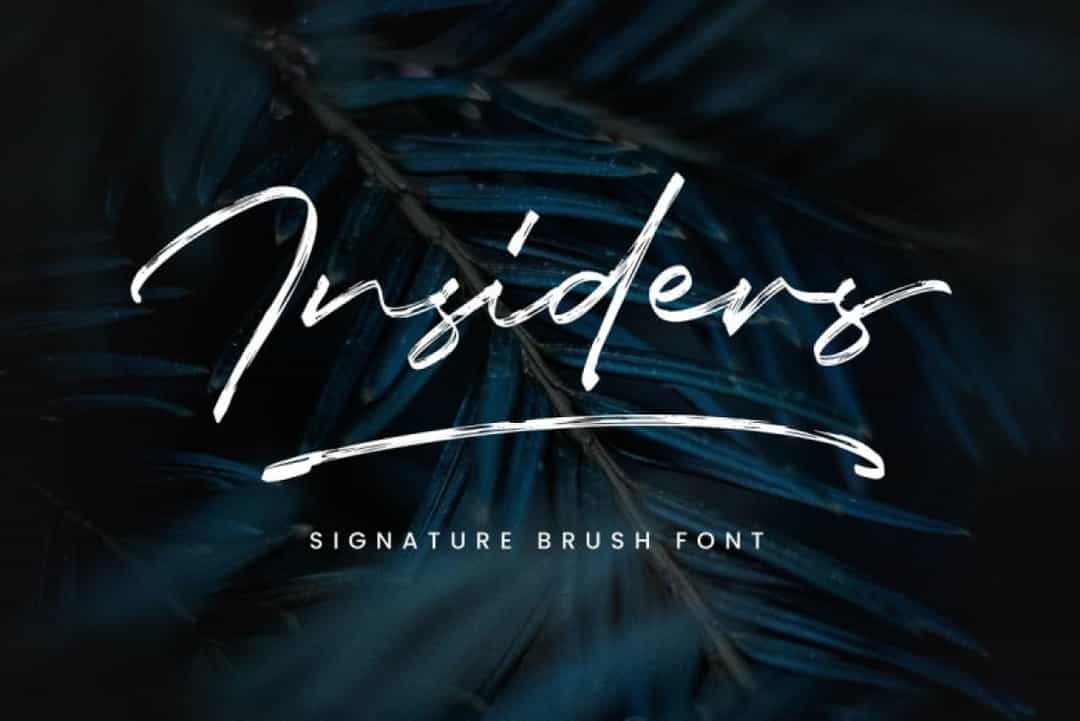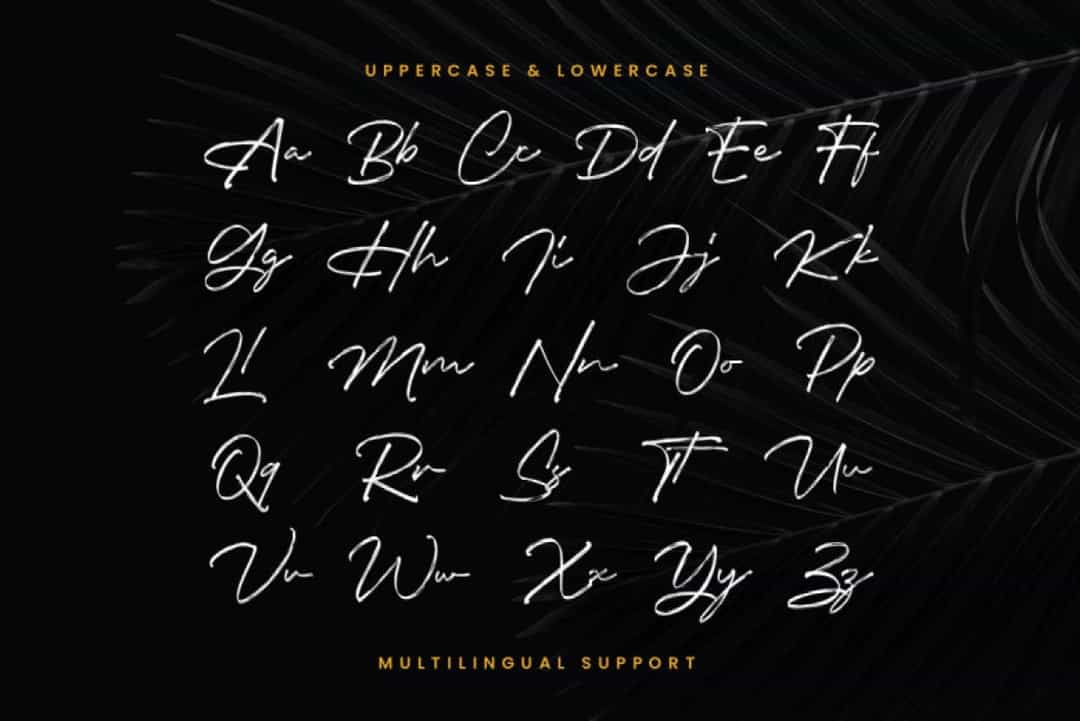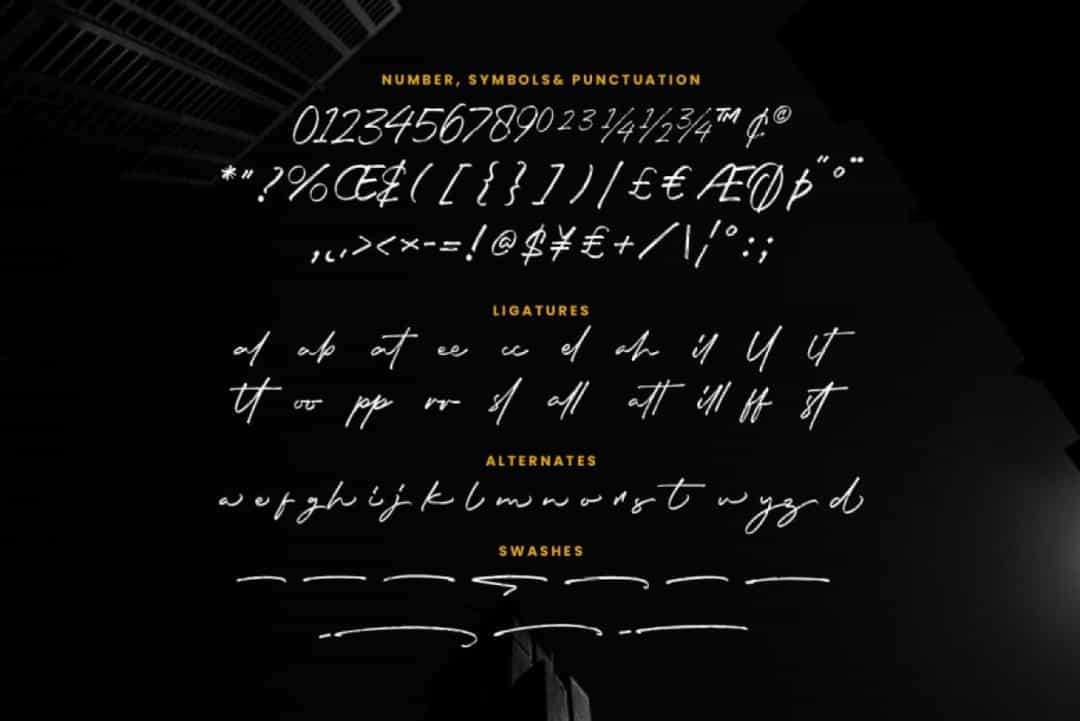
Insiders Brush Font is our new brush exploration. Crafted with care to celebrate every detail of a brush’s form and function. Inspired by dry brush letters and logo designs. Reminiscent of writing style but lively enough for casual yet elegant ensembles alike.